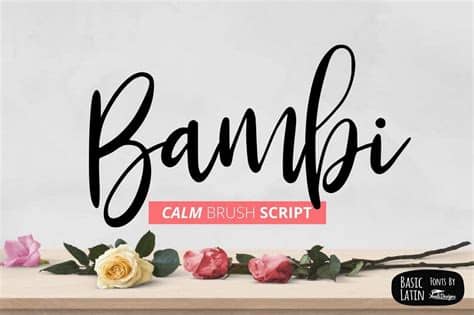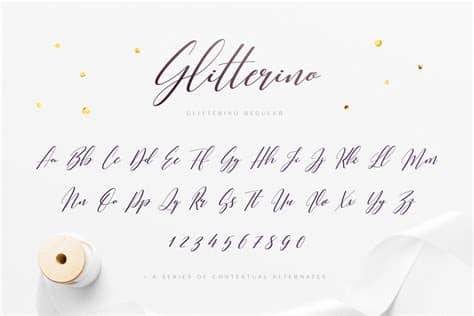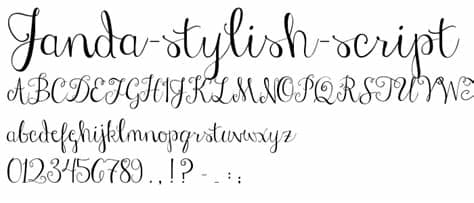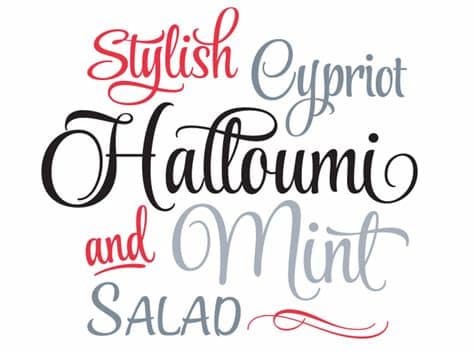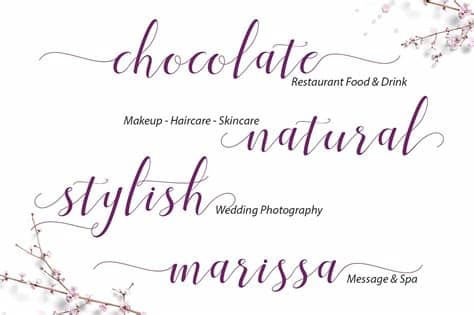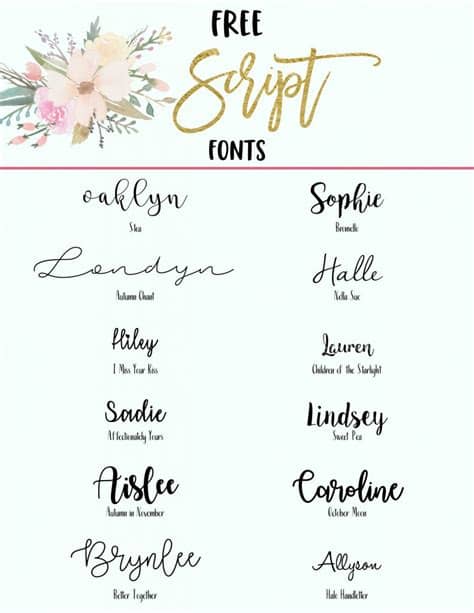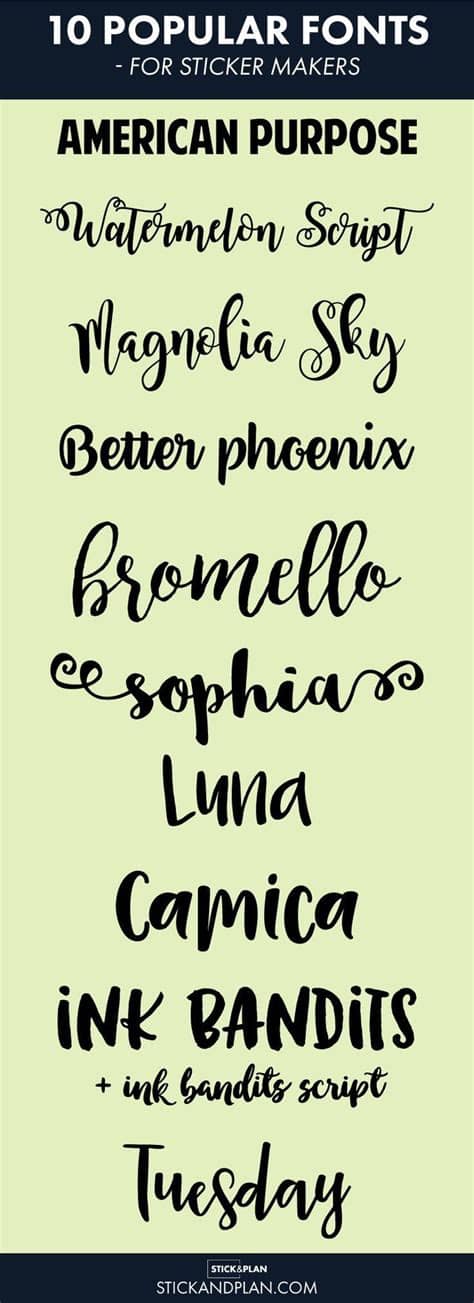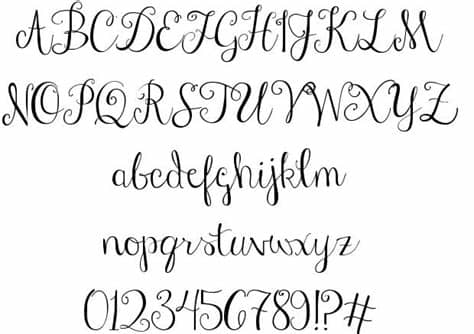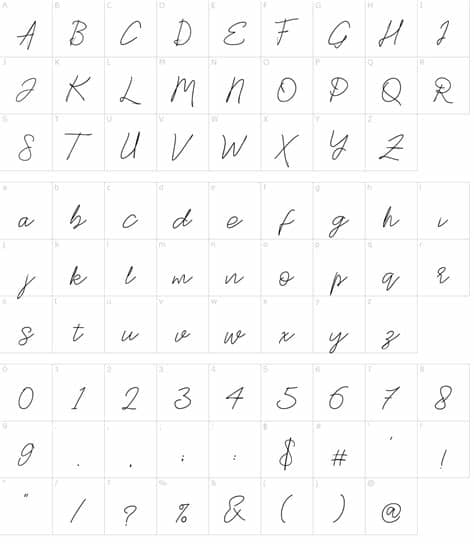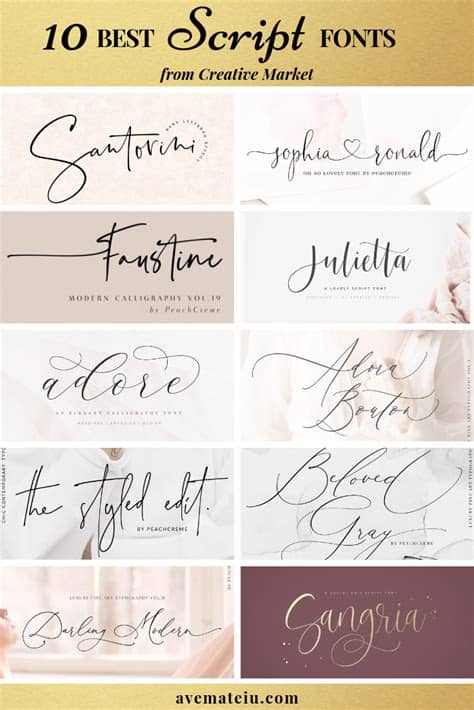
Trendy Script Fonts / Eastwood Stylish Bold Script Font By Balpirick Studio ... : See more ideas about fonts, script fonts, typography fonts.. Browse by alphabetical listing, by style, by author or by in script > calligraphy. This accurate monoline script font could be used for various purposes, including wedding invitations. Script typefaces are based upon the varied and often fluid stroke created by handwriting, pretty much like the cursive fonts just typically more elegant. Find amazing script styles in this collection for 2020.30 beautiful modern script fonts there's another great font duo pack is this trendy script set. Votes, rated based on results identification.
The best selection of script fonts for windows and macintosh. Trendy, various, trendy.ttf, windows font. Find amazing script styles in this collection for 2020.30 beautiful modern script fonts there's another great font duo pack is this trendy script set. There's nothing more satisfying than pairing the right script font with a design. Subscribe to envato elements for unlimited fonts downloads for a single monthly fee.
Trends are those guides that will keep you within the bounds of common sense. Licensed for personal and commercial use. Puzzled, from dmitriy chirkov is a modern trendy script that has been attentively written with gentle curves to produce a font thats completely distinctive and original. Rasberry looks lovely on wedding invitations, thank you cards, quotes, greeting cards, logos, business. The best selection of script fonts for windows and macintosh. Handwriting script fonts can often look a little fake and contrived, but here's one that looks more like looking for more free script fonts that evoke a young and trendy feel? Vegan style, created by billy. You can use these fonts to create custom styles. Similar fonts for trendy script from creativemarket.com. The provided zip file downloads contain the latest versions of the font files to install on your desktop. Votes, rated based on results identification. Create masterpieces of design with these 32 beautiful and functional fonts for 2021 web and graphic design. Download 10,000 fonts with one click for $19.95.
Find amazing script styles in this collection for 2020.30 beautiful modern script fonts there's another great font duo pack is this trendy script set. Typography is currently playing a central role in web design, with progressive improvements like variable fonts, css shapes, flexbox. You can use these fonts to create custom styles. Create masterpieces of design with these 32 beautiful and functional fonts for 2021 web and graphic design. There's nothing more satisfying than pairing the right script font with a design.
Rasberry font duo is a new modern script font with an irregular baseline. Click on the google fonts link to use the fonts on your website. There's nothing more satisfying than pairing the right script font with a design. First font is modern, thin & unique style handwritten script font with multi language support and lot of stylistic alternates + swash font. Create masterpieces of design with these 32 beautiful and functional fonts for 2021 web and graphic design. Votes, rated based on results identification. Script typefaces are based upon the varied and often fluid stroke created by handwriting, pretty much like the cursive fonts just typically more elegant. Puzzled, from dmitriy chirkov is a modern trendy script that has been attentively written with gentle curves to produce a font thats completely distinctive and original. Every font is free to download! You can download the best fonts, free fonts for personal or commercial use. Puzzled, from dmitriy chirkov is a modern trendy script that has been attentively written with gentle curves to produce a font thats completely distinctive and original. Download 10,000 fonts with one click for $19.95. It's a simple yet effective trick to take your work to the next level.
Find amazing script styles in this collection for 2020.30 beautiful modern script fonts there's another great font duo pack is this trendy script set. Rasberry looks lovely on wedding invitations, thank you cards, quotes, greeting cards, logos, business. See more ideas about fonts, script fonts, typography fonts. It's a simple yet effective trick to take your work to the next level. Puzzled, from dmitriy chirkov is a modern trendy script that has been attentively written with gentle curves to produce a font thats completely distinctive and original.
Leave a reply cancel reply. Download trendy script font duo fonts by cruzine. 60 free calligraphy fonts and lettering fonts download. This pack includes one elegant script alongside. Rasberry looks lovely on wedding invitations, thank you cards, quotes, greeting cards, logos, business. The best selection of script fonts for windows and macintosh. With beautiful script type, professional sans serif font and more. Subscribe to envato elements for unlimited fonts downloads for a single monthly fee. Puzzled, from dmitriy chirkov is a modern trendy script that has been attentively written with gentle curves to produce a font thats completely distinctive and original. Handwriting script fonts can often look a little fake and contrived, but here's one that looks more like looking for more free script fonts that evoke a young and trendy feel? The provided zip file downloads contain the latest versions of the font files to install on your desktop. It's a simple yet effective trick to take your work to the next level. Votes, rated based on results identification.